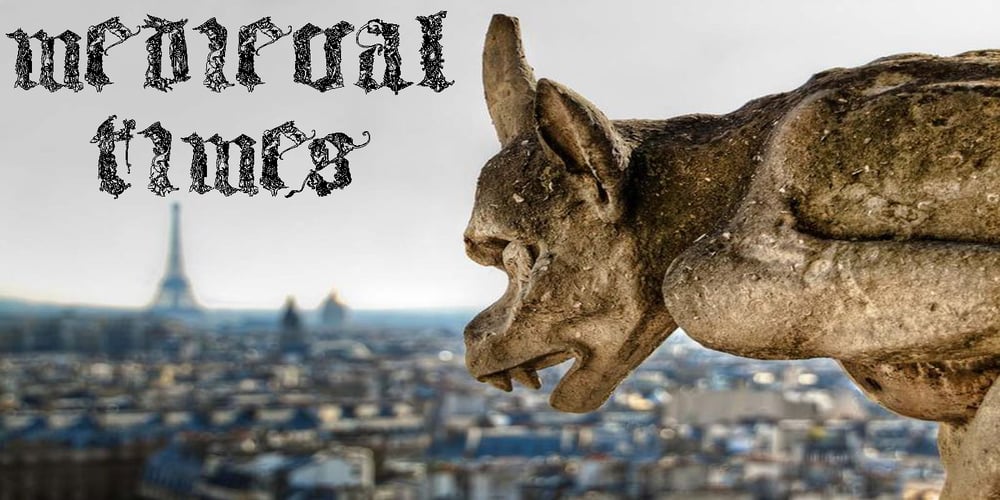
Medieval Times Font Family was designed by Jose Jimenez and published by Celebrity Fontz. Medieval Times contains 1 styles and family package options. Medieval Times is a digital revival of an illuminated alphabet dating back to a text from the medieval period. Each letter is made up of several different human or mythological animal figures engaged in activities that reflect the beliefs and myths of that enchanted era. Some examples of the beings that you will find in this font are: griffins, dragons, chimeras, lions, gargoyles, unknown mythical winged creatures, peasants, priests, saints, and warriors battling with spears. Comes with a full set of accented letters.